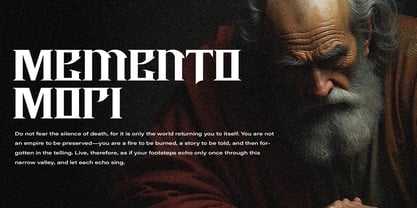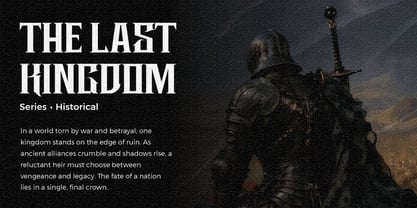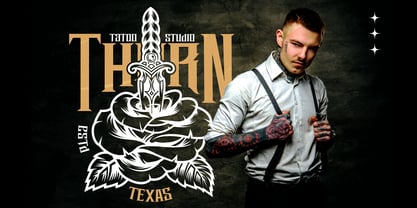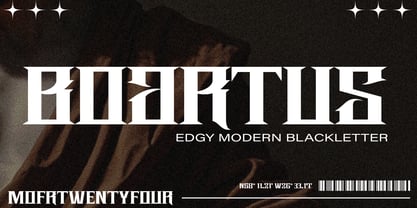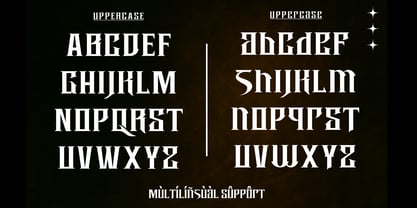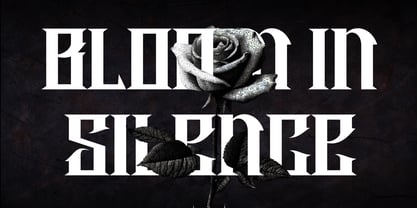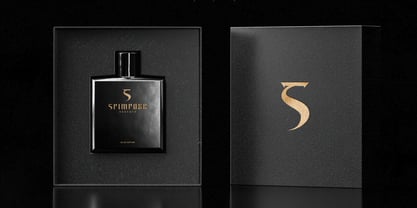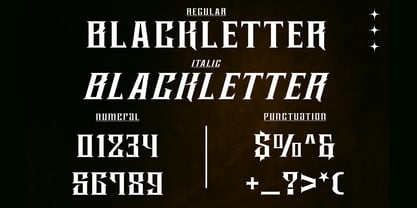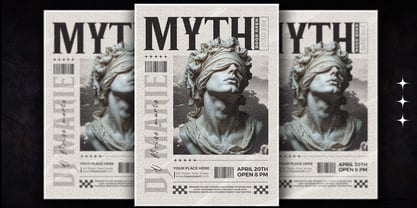
Boartus
by Mofr24
The Boartus Font Family was designed by Mohamad Farhan Ramadhan and published by Mofr24. Boartus contains 2 styles and family package options. More about this family
Boartus is a modern blackletter typeface that blends medieval aesthetics with a bold, contemporary edge. Unique and courageous, it features more than 300 glyphs, including multi-language support and oblique styles. Its strong, intricate letterforms exude both tradition and modernity, making it perfect for streetwear designs, posters, branding, and striking typography. Whether crafting a medieval-inspired project or adding a bold statement to modern visuals, Boartus delivers an unforgettable and fearless typographic experience.
Designers: Mohamad Farhan Ramadhan
Foundry: Mofr24